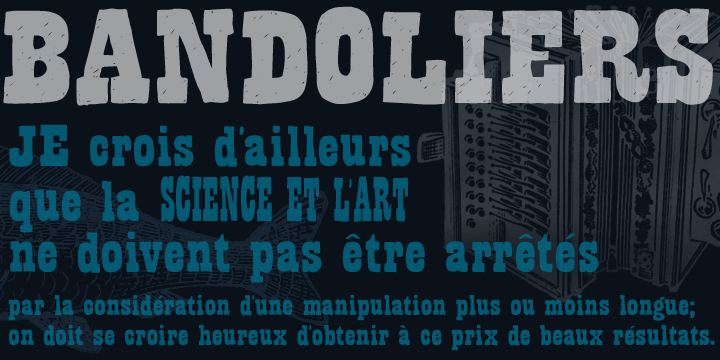
Bandoliers
Bandoliers by PintassilgoPrints
Bandoliers Font Family was designed by Erica Jung, Ricardo Marcin and published by PintassilgoPrints. Bandoliers contains 8 styles and family package options. More about this family
About Bandoliers Font Family
Dusty and charmingly rustic, Bandoliers is a hand-drawn family of eight loud speaking fonts. Not quite sure which one to pick? Ask the dust... Or just take them all! (Be sure to put your earplugs in!)
Designers: Erica Jung, Ricardo Marcin
Publisher: PintassilgoPrints
Foundry: PintassilgoPrints
Design Owner: PintassilgoPrints